Are you the bold new serif in town, or do you tend to stay within the lines? Adobe Acrobat has identified personality traits for 13 of the most recognized typefaces, inviting font lovers to find the one best suited for them.
Everyone has an idea of the kind of voices certain typefaces may project, but the tech giant went a step further by asking artificial intelligence to develop defined profiles for them. To start, the company used AI to craft 13 different email personas, each inspired by a different font like Helvetica, Times New Roman, or Comic Sans, before surveying over 1,000 Americans to find out how much they resonated with people.
As it turns out, Courier New was the most relatable font personality for more than a quarter of respondents. Its straightforward style seemed to click with many people.
Meanwhile, Comic Sans—perhaps the internet’s most divisive font—came across as enthusiastic and motivational, while Helvetica had a more concise, informative vibe.
Then there’s Wingdings: if it had a personality, people thought it would probably work in architecture and be outgoing and social, according to the findings.
Across the different generations surveyed, Courier New remained popular, landing at the top for everyone except baby boomers, who found Impact to be the most relatable. As for Times New Roman, it didn’t fare quite as well; it came in eighth when people were asked to choose a personality style they would actually use in an email. This outcome seems to challenge Times New Roman’s long-standing status as the classic go-to font for formal communication.
“Just as zodiac signs unveil the essence of one’s character, these font personality cards hold the key to discovering your typographic kindred spirit, from the creative allure of Lobster to the practical charm of Arial. Let these font horoscopes illuminate your path and empower you to embrace the font persona that speaks to your digital identity,” says the Adobe Acrobat team. Whether it’s your affinity for Helvetica's clean lines or the chaotic energy of Comic Sans, it’s an amusing way to look at how the fonts we use might reveal a little about who we are.
Without further ado, head down to discover your typographic twin. The graphic for Helvetica is shown right above.
Times New Roman
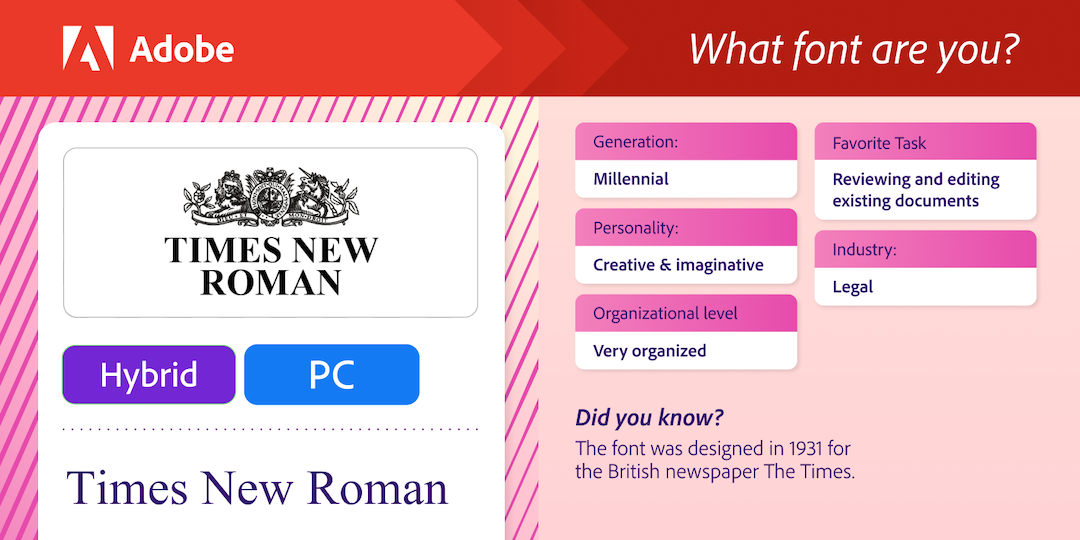
Calibri
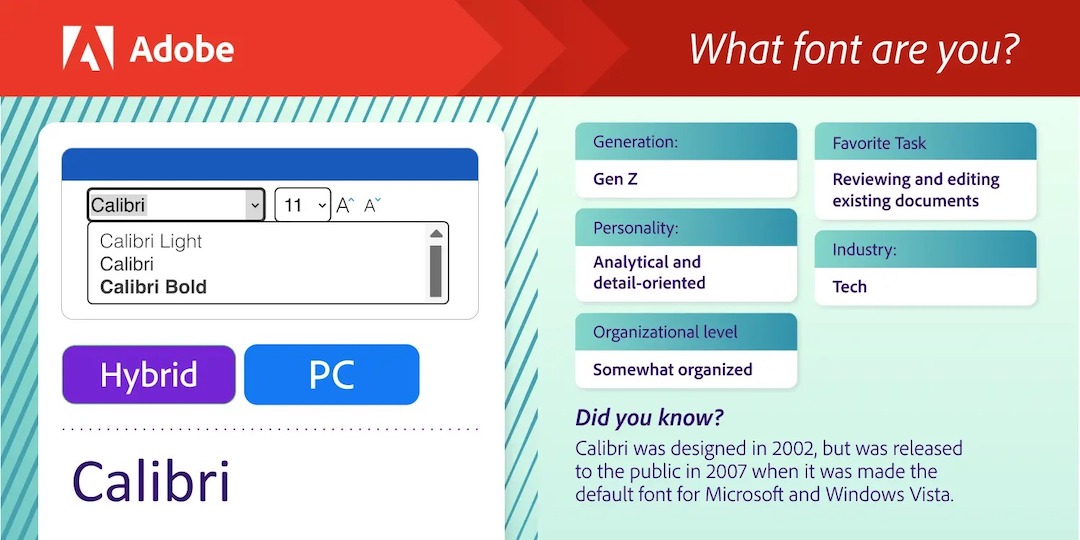
Arial
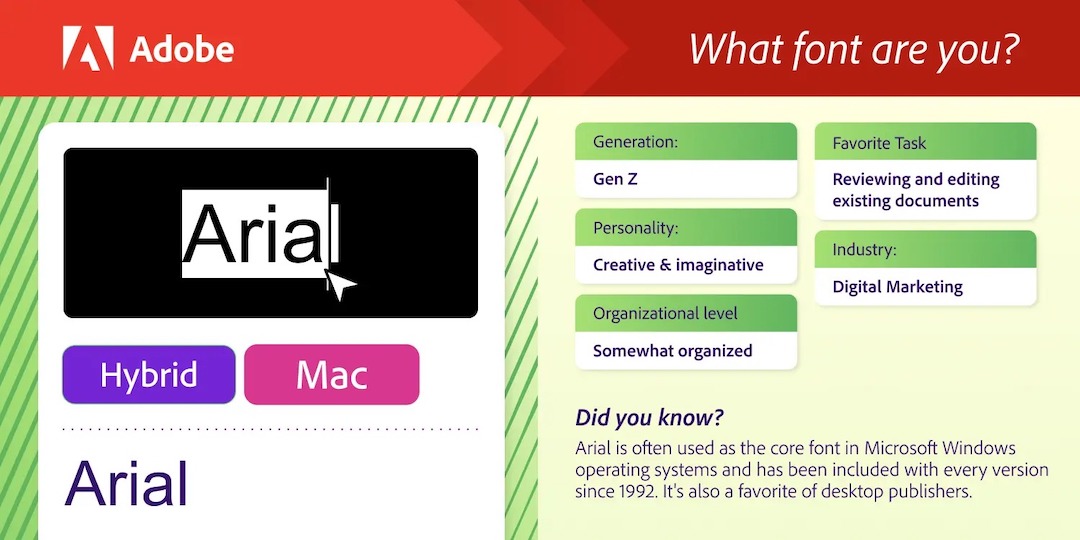
Impact
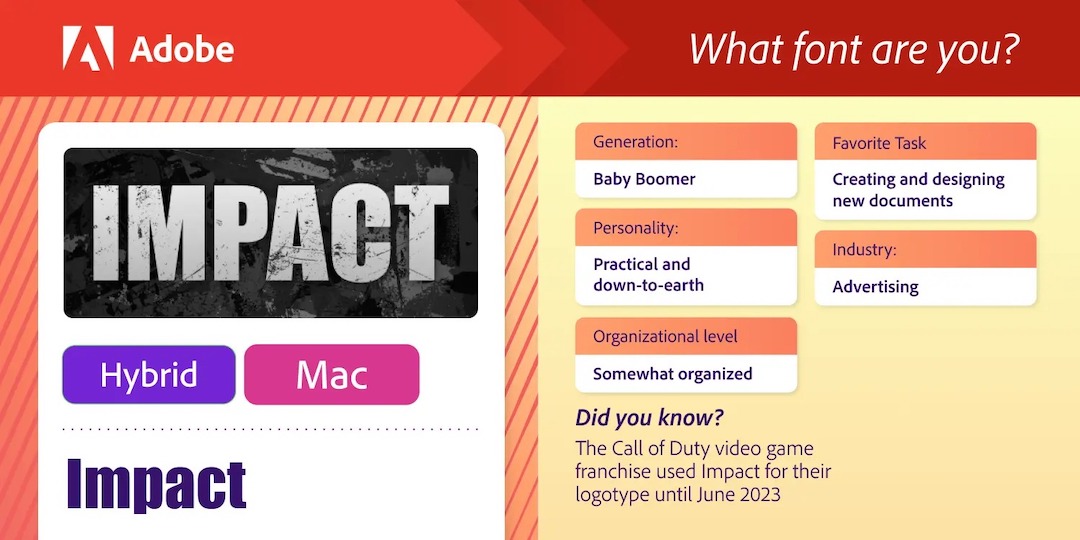
Comic Sans
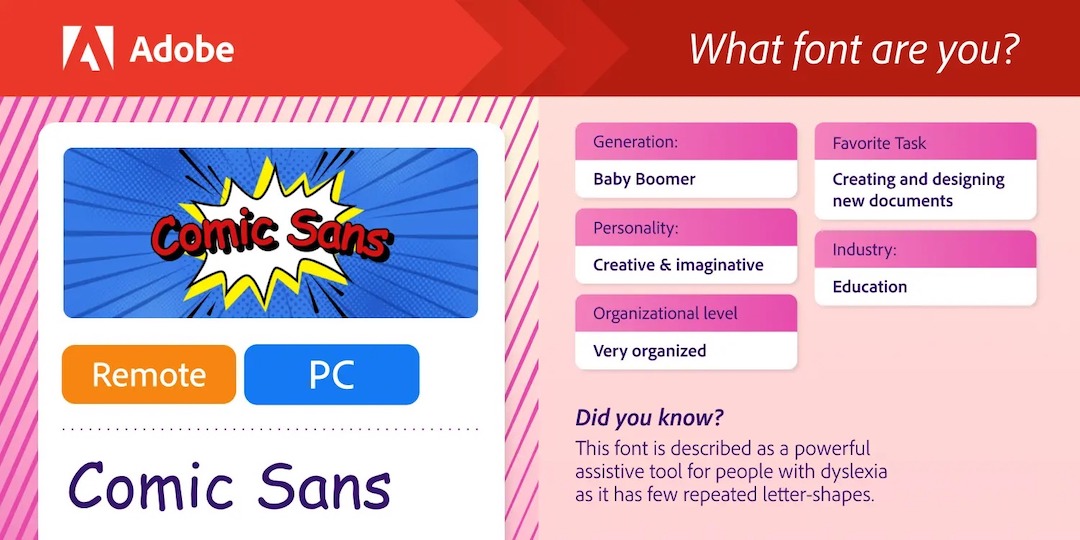
Roboto
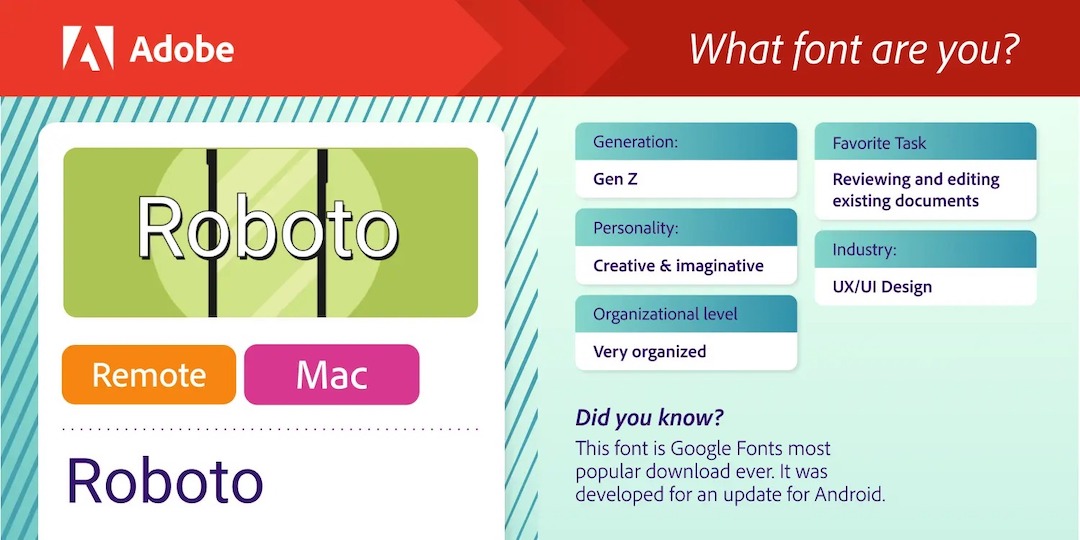
Lobster
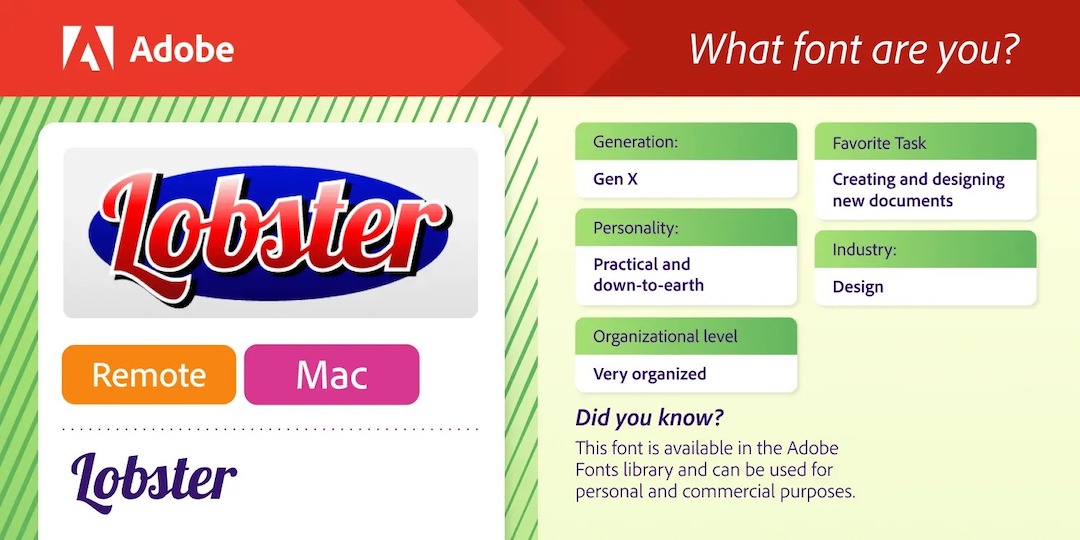
Courier New
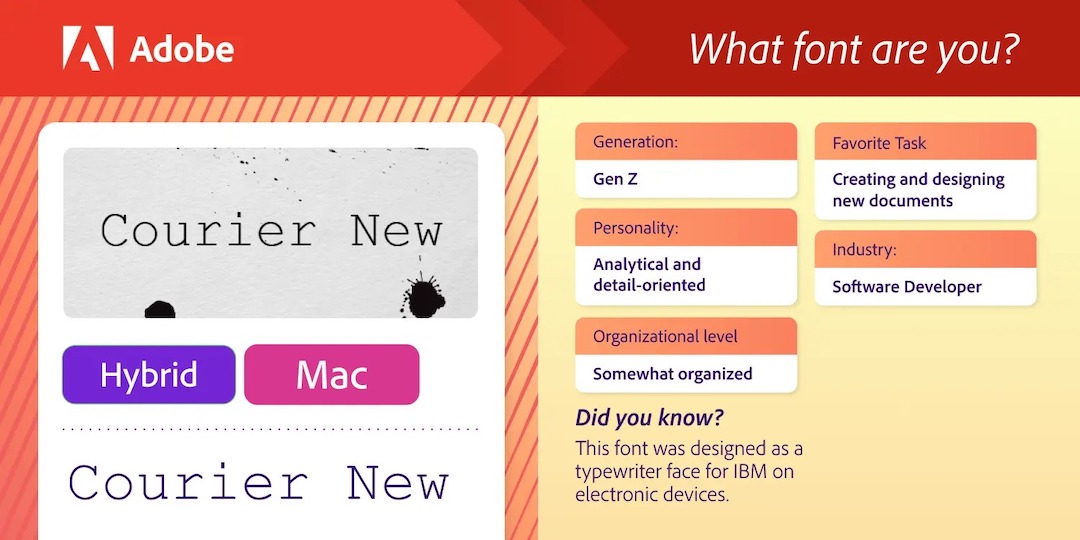
Verdana
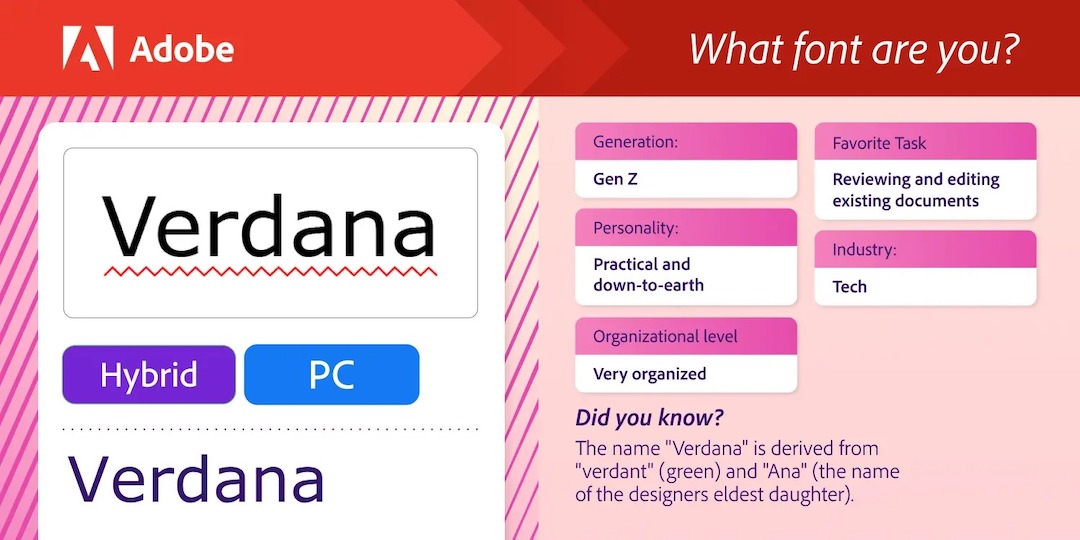
Georgia
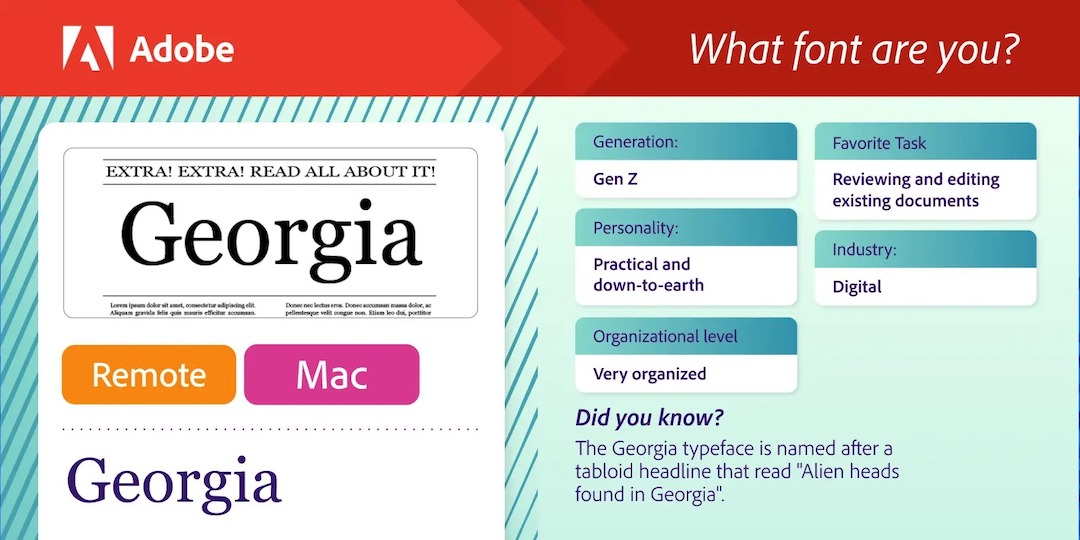
Wingdings
Papyrus